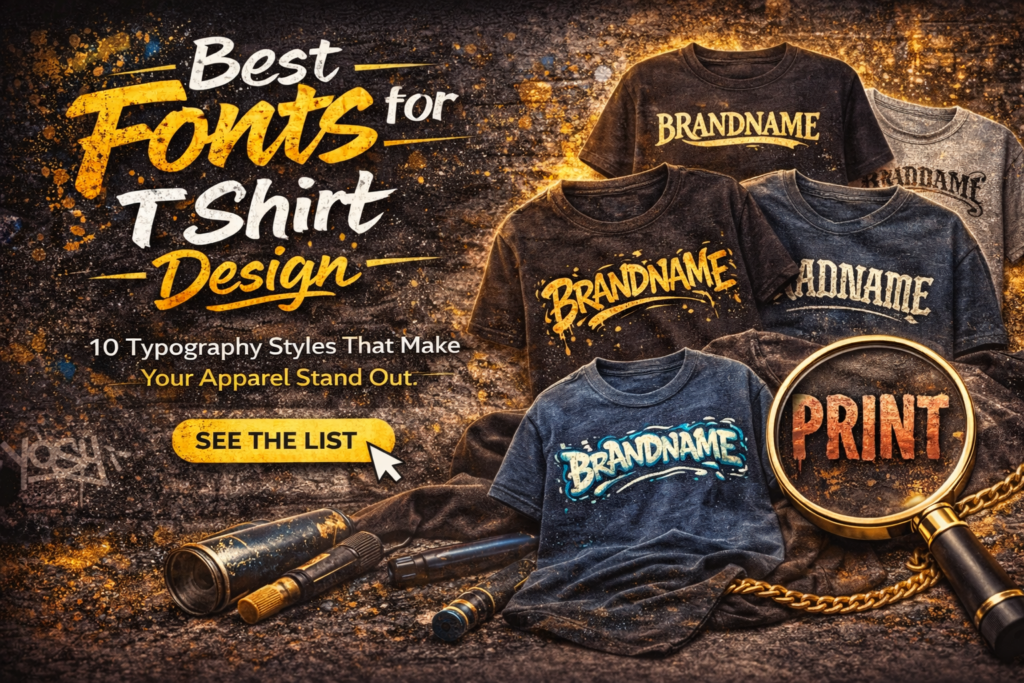
Choosing the best fonts for t shirt design is one of the most important parts of creating eye-catching apparel. In fashion and merchandise, typography is often the hero element that grabs attention and makes the design memorable.
Whether you are designing for streetwear, brand merchandise, events, or custom apparel, the right font can dramatically improve the final result.
In this guide, we’ll explore the best typography styles for t shirt design and how to choose the right font for your apparel projects.
Why Fonts Matter in T Shirt Design
Typography on apparel is more than text.
It directly affects:
• visual impact
• readability
• style identity
• brand recognition
A strong font can turn a simple shirt into a best-selling design.
10 Best Fonts for T Shirt Design
1. Graffiti Fonts
Graffiti fonts are perfect for:
• streetwear shirts
• youth apparel
• skater brands
These fonts create a bold urban look.
2. Brush Fonts
Brush fonts create energy and movement.
Great for:
• casual shirts
• creative brands
• lifestyle apparel
3. Bold Sans Serif Fonts
Perfect for minimalist and premium shirts.
These fonts are clean and modern.
4. Vintage Fonts
Vintage fonts work well for:
• retro apparel
• band merchandise
• heritage clothing brands
5. Gothic Fonts
Excellent for:
• edgy shirts
• music merch
• dark streetwear
6. Distressed Fonts
These fonts create a worn and rugged print style.
Great for vintage fashion.
7. Bubble Fonts
Playful and expressive.
Best for youth clothing lines.
8. Luxury Serif Fonts
Perfect for premium and fashion-oriented t shirt brands.
9. Display Fonts
Display fonts create unique and memorable shirt graphics.
10. Custom Lettering Fonts
Best for exclusive apparel drops and branded merchandise.
How to Choose the Best Fonts for T Shirt Design
When selecting typography, consider:
Design Theme
Streetwear → graffiti / gothic
Casual → brush / bubble
Luxury → serif / minimal
Readability
Typography should still be clear from a distance.
Best Fonts for Clothing Print Design
Final Thoughts
Choosing the best fonts for t shirt design can greatly improve product appeal and brand identity.
Typography is one of the strongest visual elements in apparel.